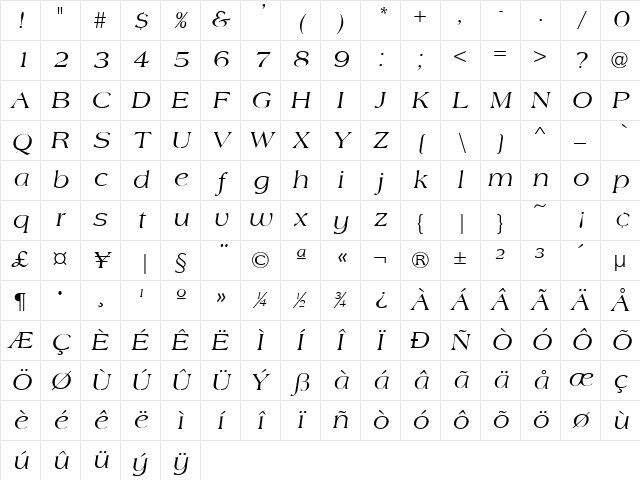
Amherst Italic
Design Context for Amherst
Amherst is a composed and adaptable typeface that performs quietly and consistently across a wide range of design contexts. The slanted form adds forward momentum and visual energy.
Pro Tip: Use Amherst for emphasis, pull quotes, and subheadings where its slanted energy can add rhythm to the layout.